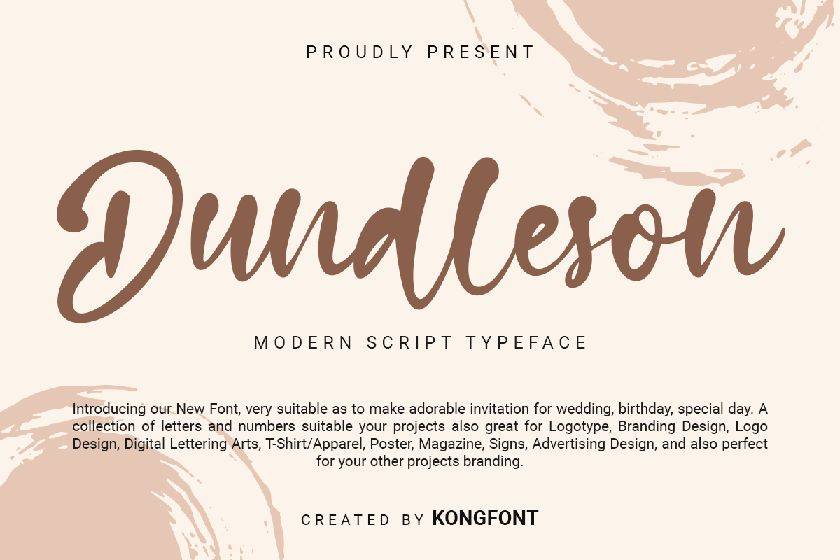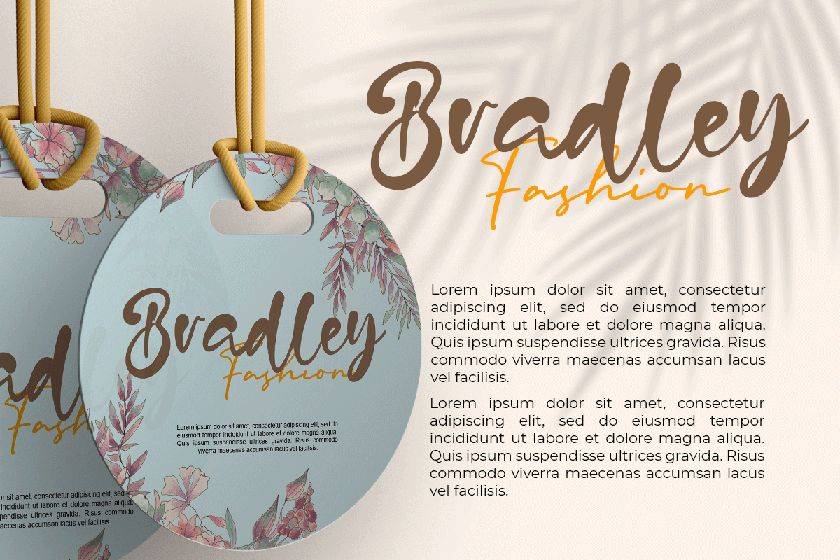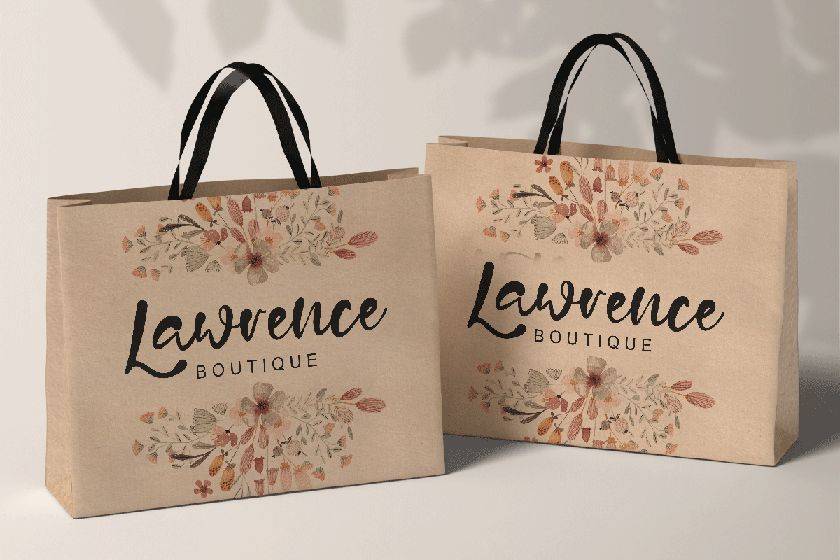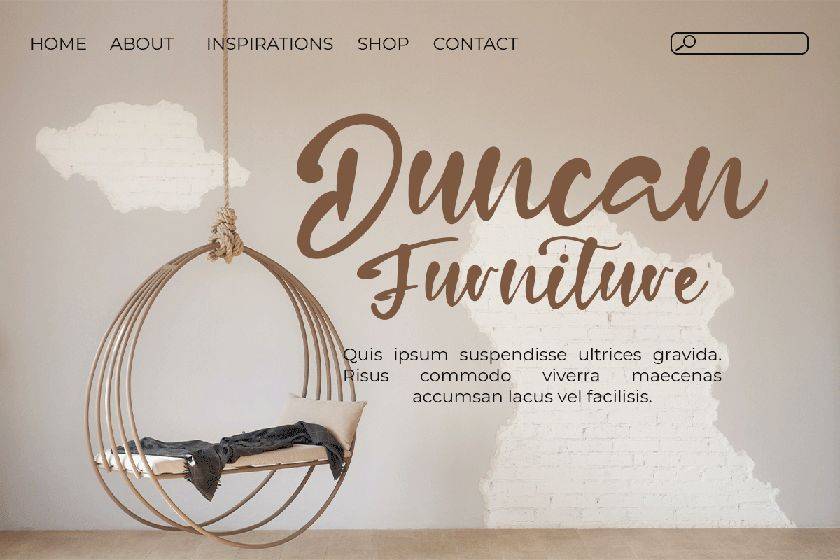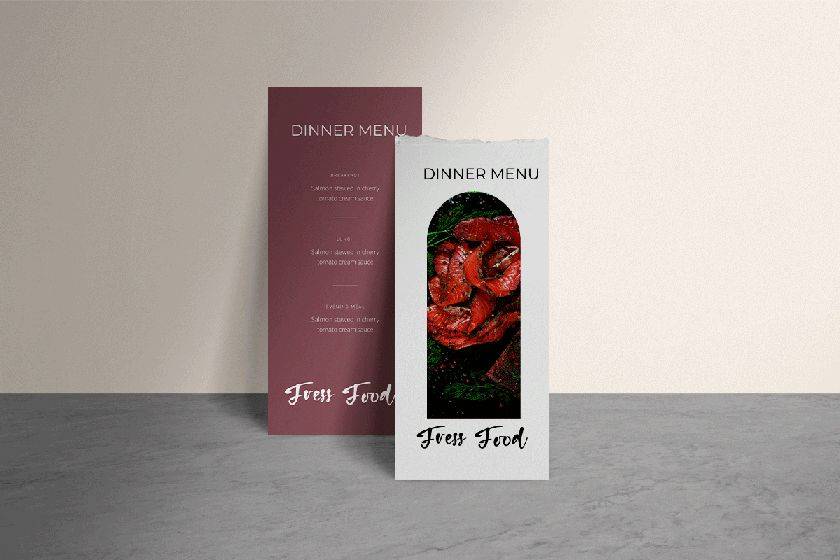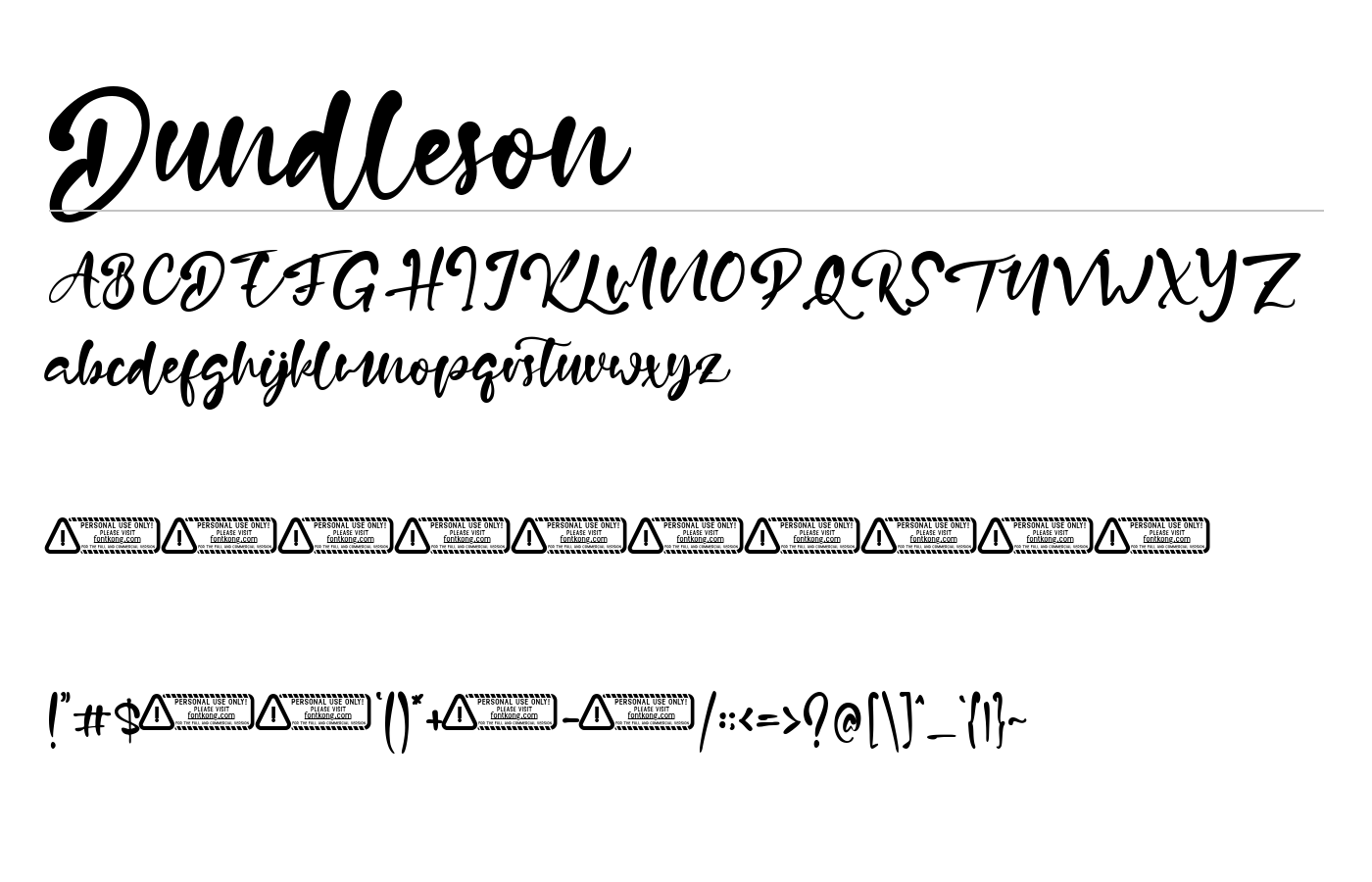
Dundleson is a lively script font with smooth, flowing strokes and a casual handwritten feel. Its medium weight and natural curves make it perfect for adding a personal, friendly touch to branding, invitations, or social media graphics, while maintaining readability and style. This font works well where a warm, approachable, yet elegant look is desired.
Dundleson Font
About Dundleson Font
| Font family | Dundleson Font |